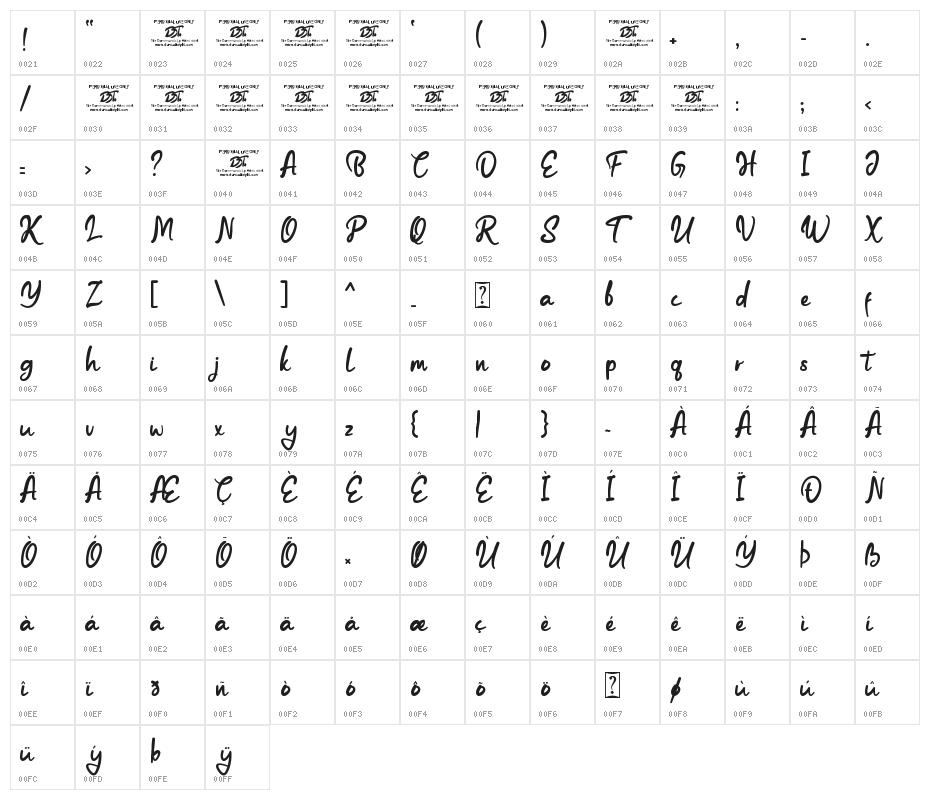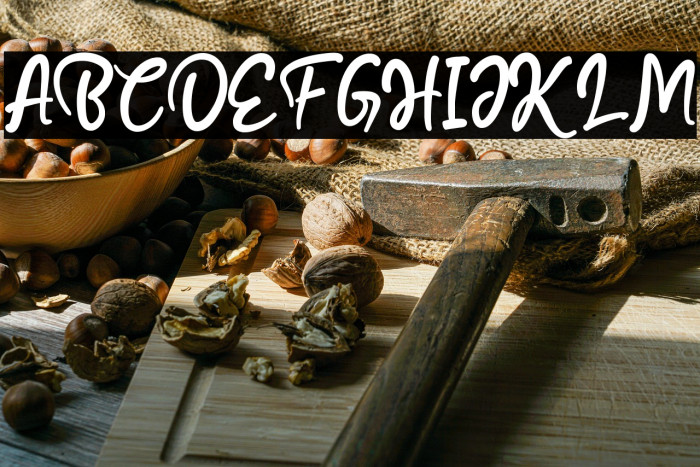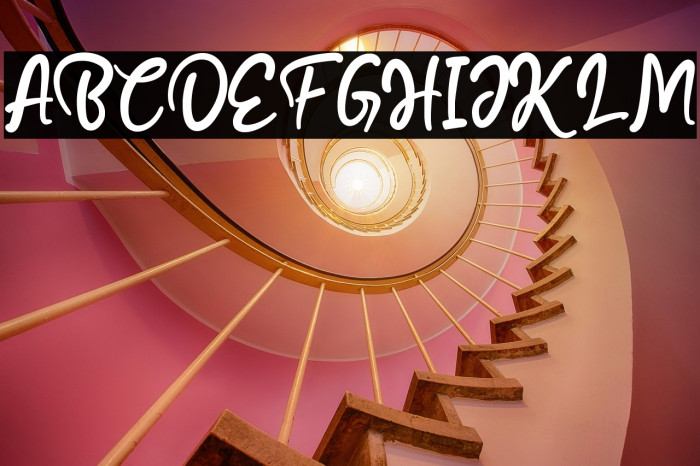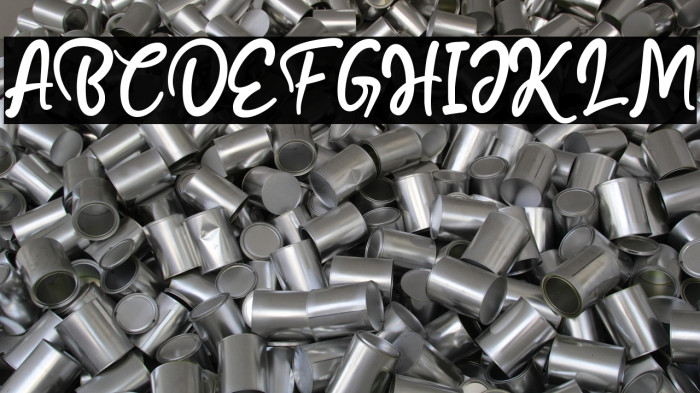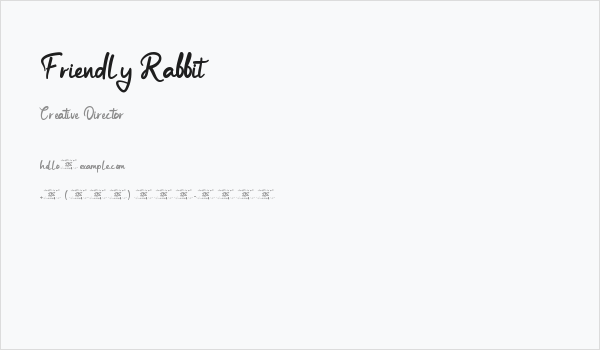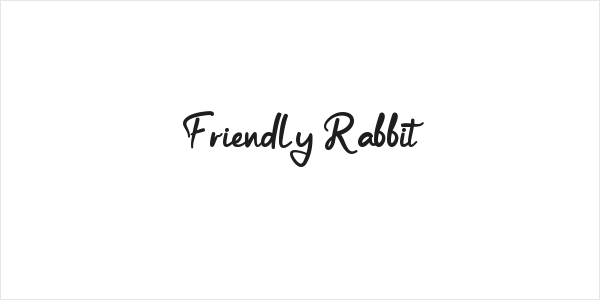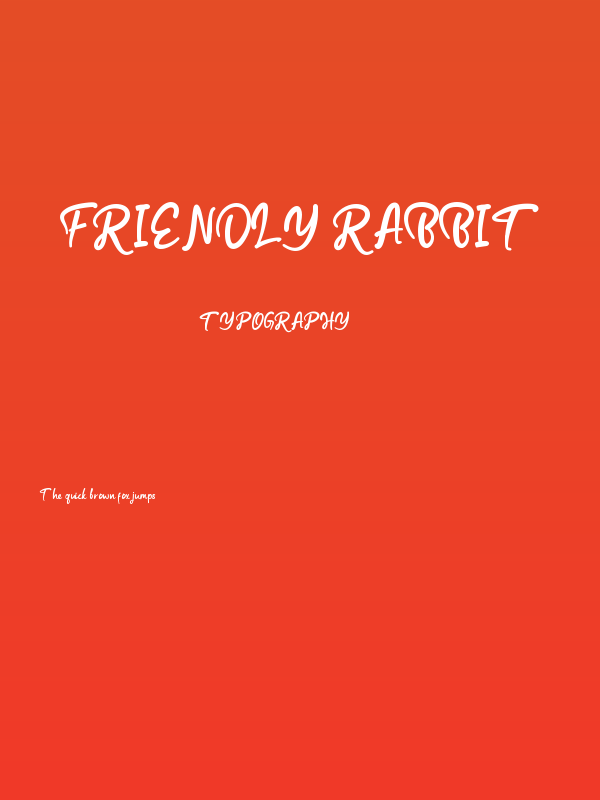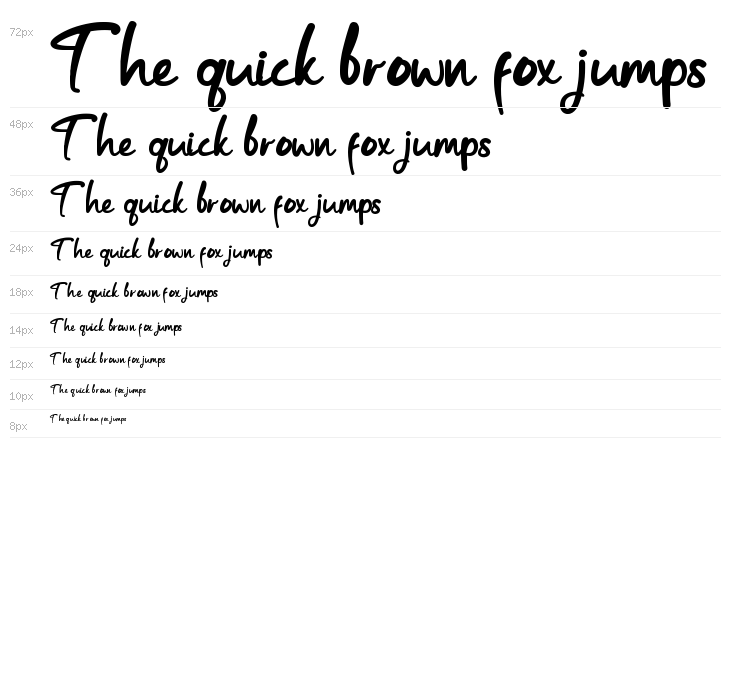
Friendly Rabbit Font
Friendly Rabbit Description
This font features a playful and lively script style with a handwritten feel. The letters are bold and rounded, giving them a friendly and approachable appearance. The uppercase characters are slightly more formal, while the lowercase letters exhibit a casual, flowing style. The font maintains a consistent stroke width, contributing to its legibility and charm. It includes a full set of uppercase and lowercase letters, numbers, and a variety of special characters, making it versatile for different design needs.
| Overall Style | Playful |
| Use Case | Logos, Headlines, Social media graphics |
| Proposed Projects | Ideal for greeting cards, playful branding, children's books, and social media graphics. |